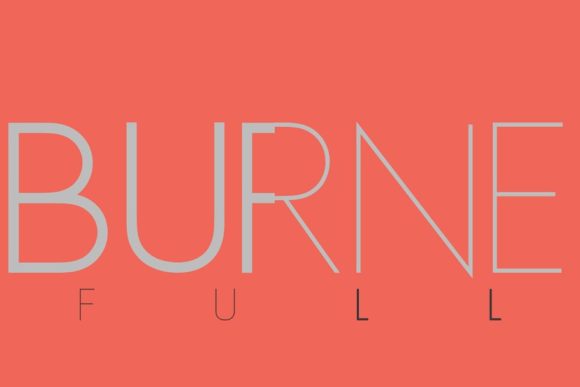
The Designer’s Delight: Uncovering the Beauty of Burne Font
I’ll never forget the struggle I faced while working on a project for a minimalist client. I had to find the perfect font that embodied simplicity and elegance. After hours of scouring through font libraries, I stumbled upon Burne Font. It was love at first sight! ✨ The clean lines, geometric shapes, and effortless feel won my heart, and I knew I had found the perfect fit for my project.
A Closer Look: What I Love About Burne Font
Burne Font is a geometric sans-serif font family that boasts a clean and simplistic feel. Here are some aspects that I absolutely adore:
- ✅ Clean Lines: Burne Font features clean lines that make it perfect for projects that require a minimalist approach.
- ✨ Elegant Curves: The font’s curves are smooth and elegant, adding a touch of sophistication to any design.
- 💡 Versatility: Burne Font comes in various weights, making it suitable for a wide range of applications, from headings to body text.
Honest Review: A Few Quirks to Consider
While Burne Font has stolen my heart, it’s not without its limitations. Here are a few quirks to consider:
- 🤔 Limited Character Set: Burne Font has a limited character set, which might not be suitable for projects that require a wide range of special characters.
- ⚠️ Not Suitable for Body Text: While Burne Font is elegant, it’s not the most readable font for body text. It’s best used for headings or titles.
Exploring Alternatives: Similar Fonts to Burne
If you love Burne Font, you might also enjoy these similar fonts:
- Montserrat: A geometric sans-serif font with a similar feel to Burne Font. Use it for modern and sleek designs.
- Inter: A contemporary sans-serif font that’s perfect for digital applications. Use it for projects that require a clean and minimalist look.
- Raleway: An elegant sans-serif font with a similar sophistication to Burne Font. Use it for projects that require a touch of luxury.
- Avenir: A geometric sans-serif font that’s perfect for projects that require a clean and futuristic look.
The Story Behind Burne Font
Burne Font was designed with the intention of creating a clean and minimalist font that embodies the spirit of modern design. The designer aimed to create a font that would be perfect for projects that require a touch of elegance and sophistication.
| Font Name | Burne Font |
| Author | alvarothomazoliveira |
| What is Burne Font? | Burne Font is a geometric sans-serif font family with a clean and simplistic feel. |
| What is Burne Font used for? | Burne Font is perfect for projects that require a touch of elegance and sophistication, such as headings, titles, and logos. |